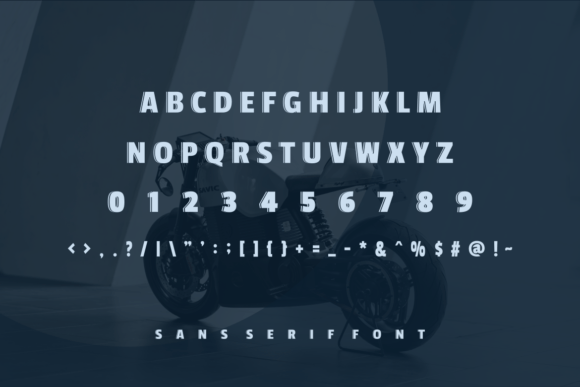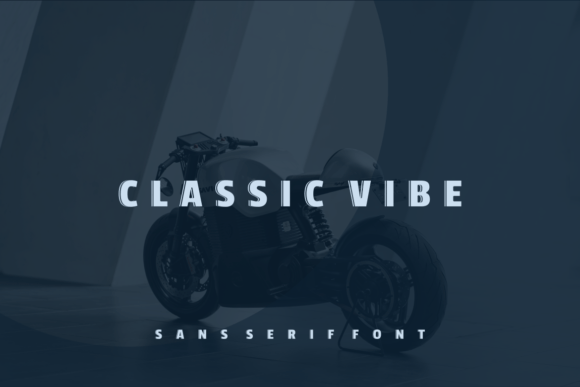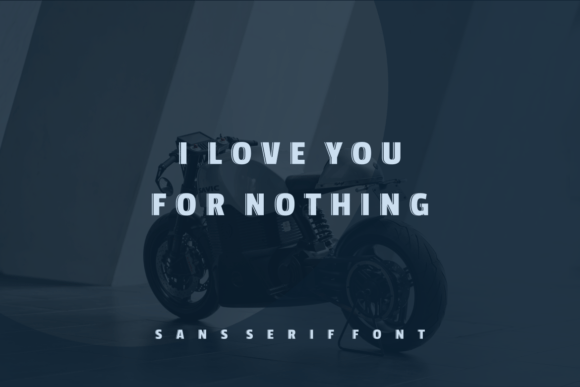
Introducing Elementica Font: The Cool and Modern Display Font You Need
Are you tired of using the same old fonts for your designs? Do you want to add a touch of trendiness to your crafting, digital designing, presentations, or greeting card making? Look no further than Elementica Font! This cool and modern display font is perfect for anyone looking to elevate their design game.
What is Elementica Font?
Elementica Font is a stylish and contemporary display font that is designed to make a statement. With its sleek lines and modern aesthetic, it’s the perfect addition to any design project. Whether you’re a professional designer or a crafty DIY enthusiast, Elementica Font is sure to impress.
Key Features of Elementica Font
• Modern and trendy design: Elementica Font features a unique and stylish design that’s perfect for making a statement.
• Versatile: This font is perfect for a variety of design projects, including crafting, digital designing, presentations, and greeting card making.
• Easily readable: Despite its modern design, Elementica Font is easy to read, making it perfect for both headings and body text.
• High-quality: Elementica Font is a high-quality font that’s designed to deliver exceptional results.
Uses of Elementica Font
Elementica Font is a versatile font that can be used for a variety of design projects. Here are some ideas to get you started:
• Crafting: Use Elementica Font to add a personal touch to your crafting projects, such as scrapbooking, card making, and DIY gifts.
• Digital designing: Elementica Font is perfect for digital designers who want to create modern and stylish graphics, logos, and branding materials.
• Presentations: Add a touch of professionalism to your presentations with Elementica Font.
• Greeting card making: Use Elementica Font to create beautiful and unique greeting cards for special occasions.
Benefits of Using Elementica Font
So why choose Elementica Font for your design projects? Here are just a few benefits:
• Adds a touch of trendiness: Elementica Font is a modern and stylish font that’s sure to make your designs stand out.
• Improves readability: Despite its stylish design, Elementica Font is easy to read, making it perfect for both headings and body text.
• Increases professionalism: Use Elementica Font to add a touch of professionalism to your designs, whether you’re a professional designer or a DIY enthusiast.
• Versatile: Elementica Font can be used for a variety of design projects, making it a great addition to your font library.
Tips for Using Elementica Font
Here are a few tips for getting the most out of Elementica Font:
• Use it as a display font: Elementica Font is perfect for headings and titles, so use it to make a statement in your designs.
• Experiment with different colors: Elementica Font looks great in a variety of colors, so don’t be afraid to experiment and find the perfect color for your design.
• Pair it with other fonts: Elementica Font pairs well with a variety of other fonts, so try pairing it with a serif font for a stylish contrast.
Font Name Elementica Font
Author Izdihaar_Studio
Elementica Font is a cool and modern display font that’s perfect for designers and crafters who want to add a touch of trendiness to their designs. With its sleek lines, modern aesthetic, and versatility, Elementica Font is a great addition to any font library. Whether you’re a professional designer or a DIY enthusiast, Elementica Font is sure to impress. So why wait? Download Elementica Font today and start creating stunning designs that are sure to turn heads!